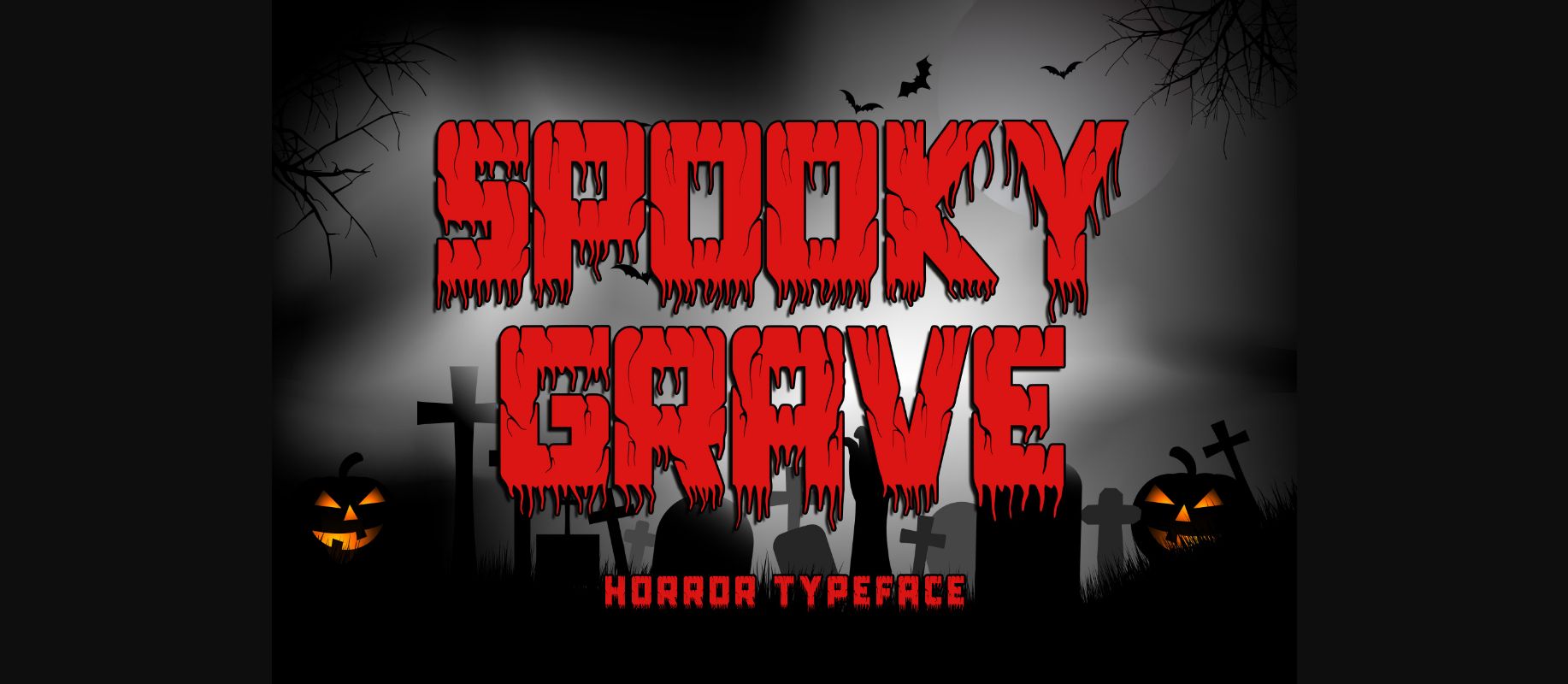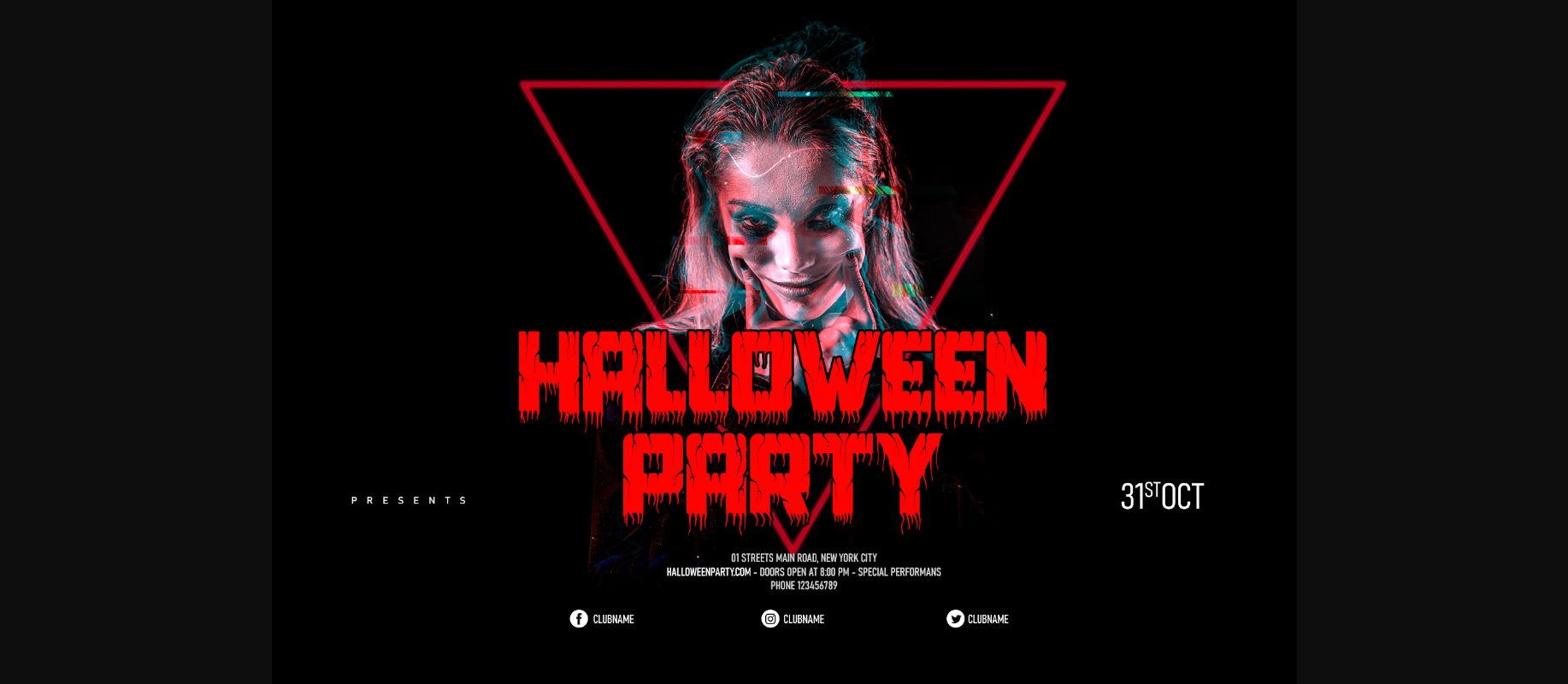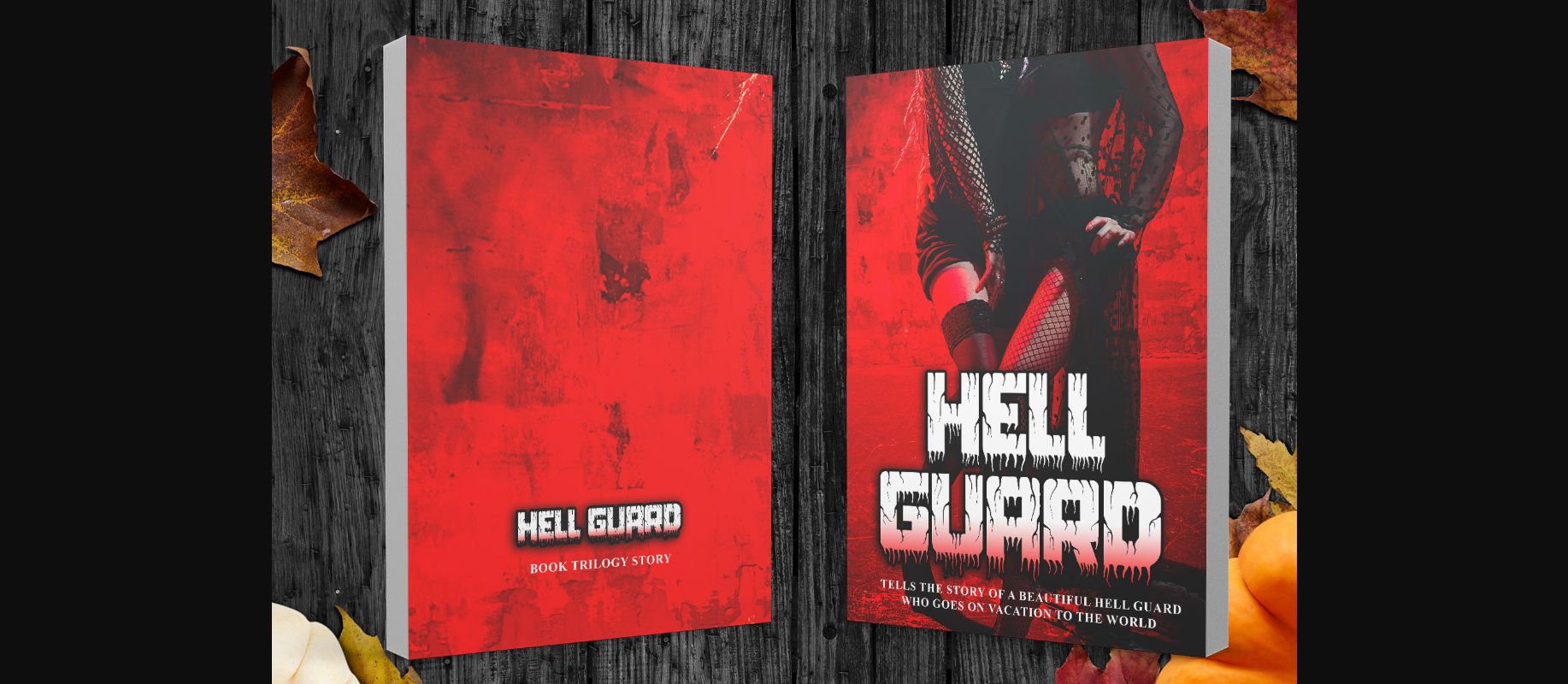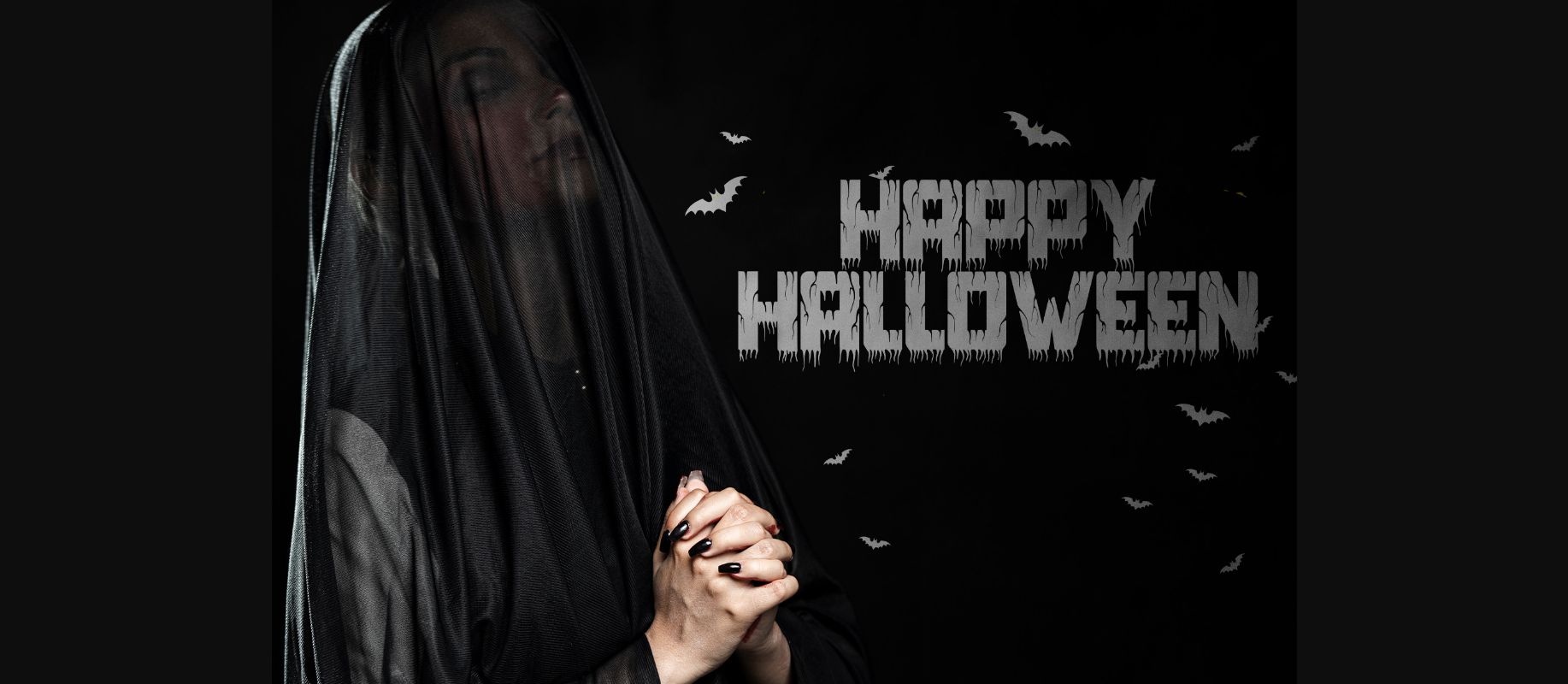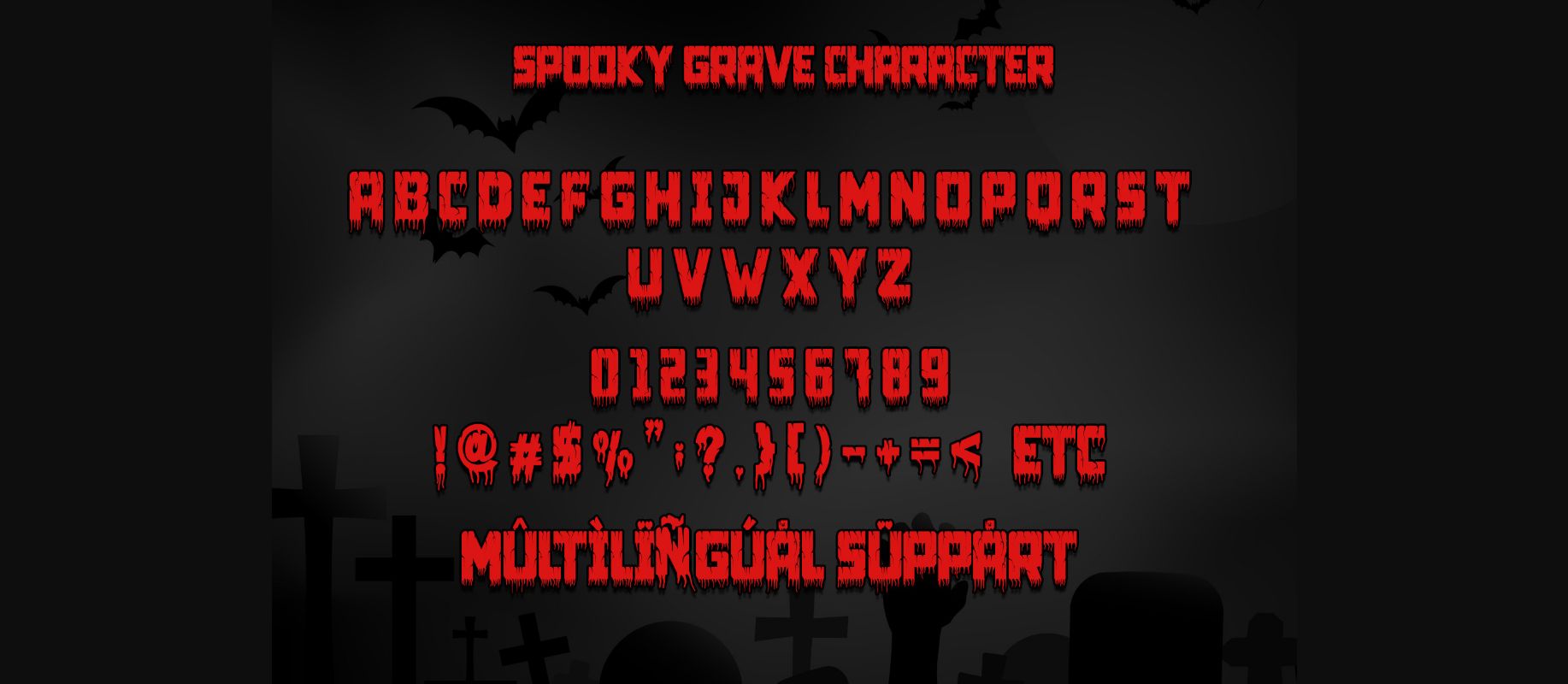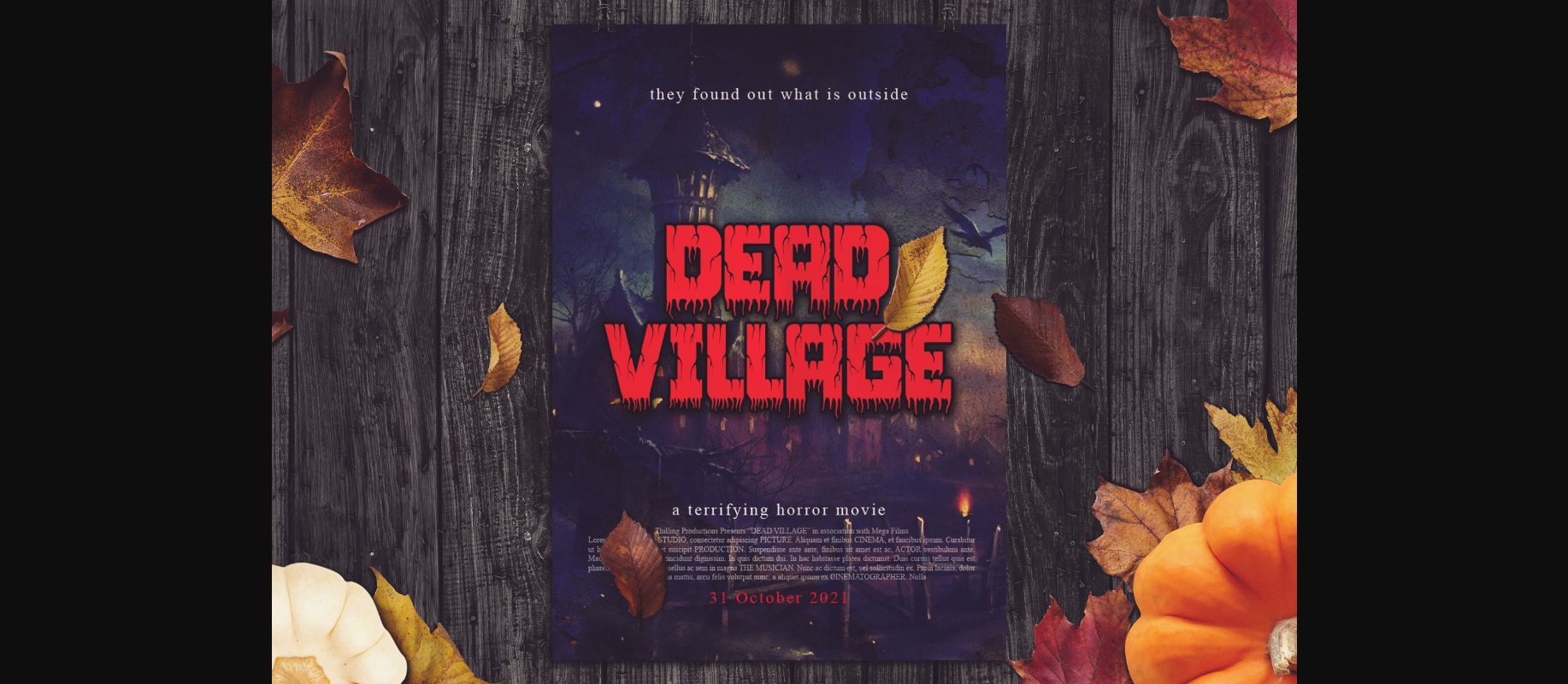
Spooky Grave Font
About Spooky Grave Font
Spooky Grave is a scary and spooky decorative font. Bold and chunky, this typeface works great for any Halloween-related project, and not only!